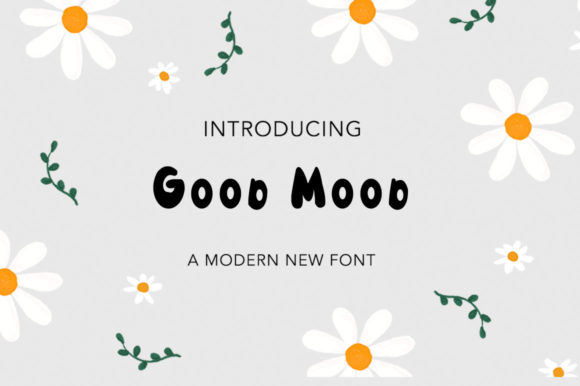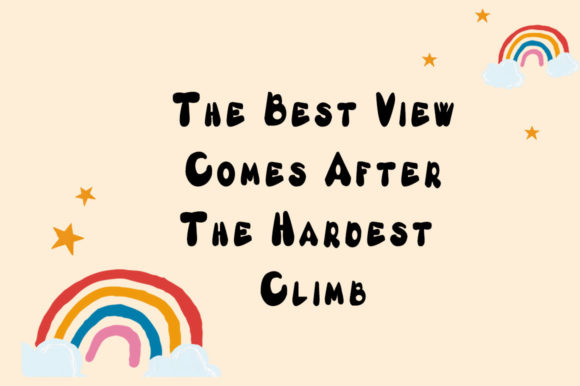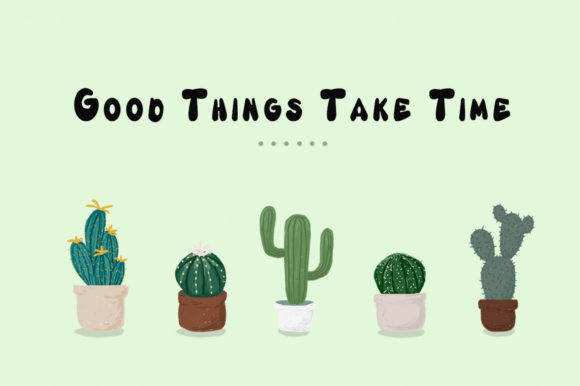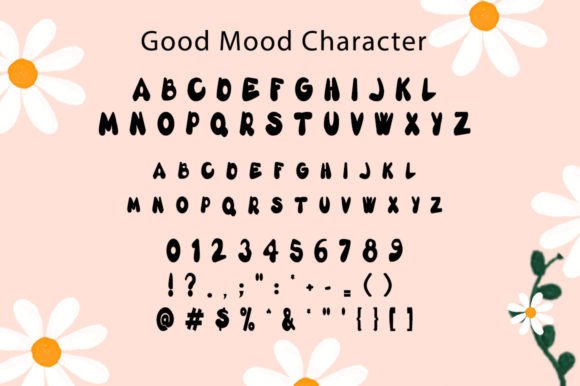
About Good Mood Font
“Good Mood”: Infuse Cuteness and Quirkiness into Your Designs with this Handwritten Font
Introducing “Good Mood,” a cute and quirky handwritten font designed to bring an incredibly friendly feel to your creative projects. Whether you’re on the lookout for fonts for Instagram, handwritten scripts for DIY projects, or a typeface that can effortlessly turn any creative idea into a true piece of art, “Good Mood” is here to deliver. With its adorable and friendly vibe, this font is well-suited for a variety of applications, making it a versatile choice for turning your ideas into artistic masterpieces.
The standout feature of “Good Mood” lies in its cute and quirky handwritten design. The font adds a touch of playfulness and uniqueness, creating a friendly atmosphere that resonates with your audience. Whether you’re working on social media posts, DIY projects, or any other creative endeavor, “Good Mood” elevates your designs with its charming and approachable aesthetic.
Imagine using “Good Mood” for Instagram posts, where the font’s friendly feel enhances the engagement and relatability of your content. In DIY projects, the font becomes a delightful tool for adding a personalized touch, turning every project into a piece of art. Its handwritten script brings warmth and authenticity, making it perfect for conveying a sense of genuine connection.
The versatility of “Good Mood” extends to various design contexts, from logos and headings to product labels and more. Its readability and quirky design ensure that your message is not only communicated effectively but also carries a visual appeal. Whether you’re working on digital or print materials, this font promises to transform your creative ideas into true expressions of art.
In conclusion, “Good Mood” is more than just a font; it’s a design companion that infuses cuteness and quirkiness into your creative projects. Whether you’re designing for Instagram, DIY projects, logos, headings, product labels, or any other context, let “Good Mood” be the font that turns your imaginative ideas into delightful and artistic masterpieces. Explore its versatility, embrace its charm, and let the good vibes flow through your designs.